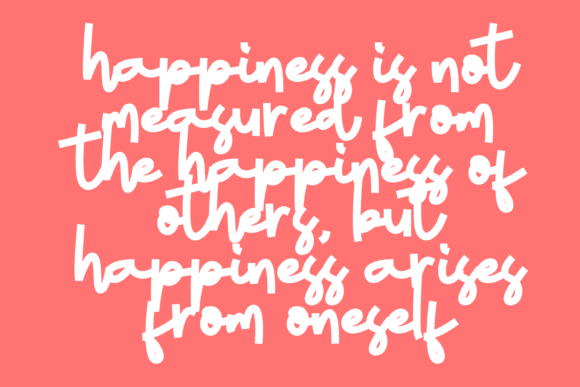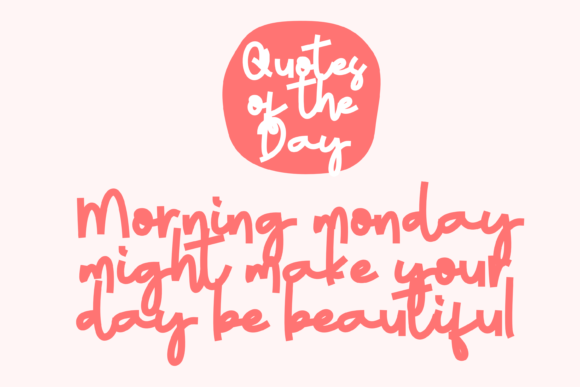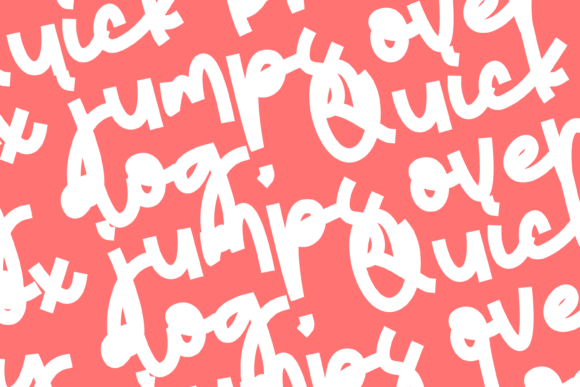
Introduction to Morning Singing Font
There’s something magical about the first morning light peeking through your window, isn’t there? It’s as if the world is waking up alongside you, full of possibilities and creativity. This is exactly the kind of feeling you’ll want to evoke with your next creative project, and the Morning Singing Font is the perfect tool to help you do just that.
Whether you’re a seasoned designer or a crafting enthusiast, the Morning Singing Font is a valuable addition to your design resource arsenal. With its modern and quirky script style, this high-quality font is sure to bring a touch of whimsy to your digital designs, presentations, and greeting cards. And the best part? It’s available for free download, making it an accessible and versatile design resource for any creative project.
Key Features of Morning Singing Font
- High-quality design font with a unique, hand-drawn style, perfect for creative projects that require a personal touch.
- Unique characteristics include a playful, whimsical feel and a range of expressive, cursive letterforms that evoke a sense of morning serenity.
- Perfect for designers looking to add a touch of elegance and sophistication to their creative projects, such as branding, invitations, and digital art.
Honest Review: Morning Singing Font
I recently had the chance to work with the Morning Singing Font, and I must say it’s been a delightful experience. This font is perfect for any creative project that requires a touch of whimsy and elegance.
- ✨ The font’s unique design is a perfect blend of vintage and modern elements, making it suitable for a wide range of creative projects.
- ⚠️ The font is only available in a limited number of weights, which may limit its versatility in certain design scenarios.
- ⚠️ Some users may find the font’s design too ornate or overwhelming, which could be a drawback for more minimalist design projects.
Overall, I’m thoroughly impressed with the Morning Singing Font. Its unique design, high-quality construction, and free availability make it an excellent resource for designers who are looking for a reliable and versatile font.
Morning Singing Font is ideal for:
Wedding invitations and stationery
Business cards and marketing materials
Artistic and creative projects